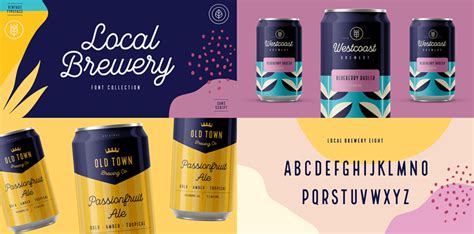
Local Brewery Three Bold Font by Cultivated Mind Font Bros
Local Brewery Font. Local brewery is a vintage inspired font collection that includes six script styles and two sans serif styles. Web local brewery is a vintage inspired font collection that includes six script styles and two sans serif styles.
Web local brewery is a vintage inspired font collection that includes six script styles and two sans serif styles. Local brewery is a vintage inspired font collection that includes six script styles and two sans serif styles.
Local brewery is a vintage inspired font collection that includes six script styles and two sans serif styles. Local brewery is a vintage inspired font collection that includes six script styles and two sans serif styles. Web local brewery is a vintage inspired font collection that includes six script styles and two sans serif styles.